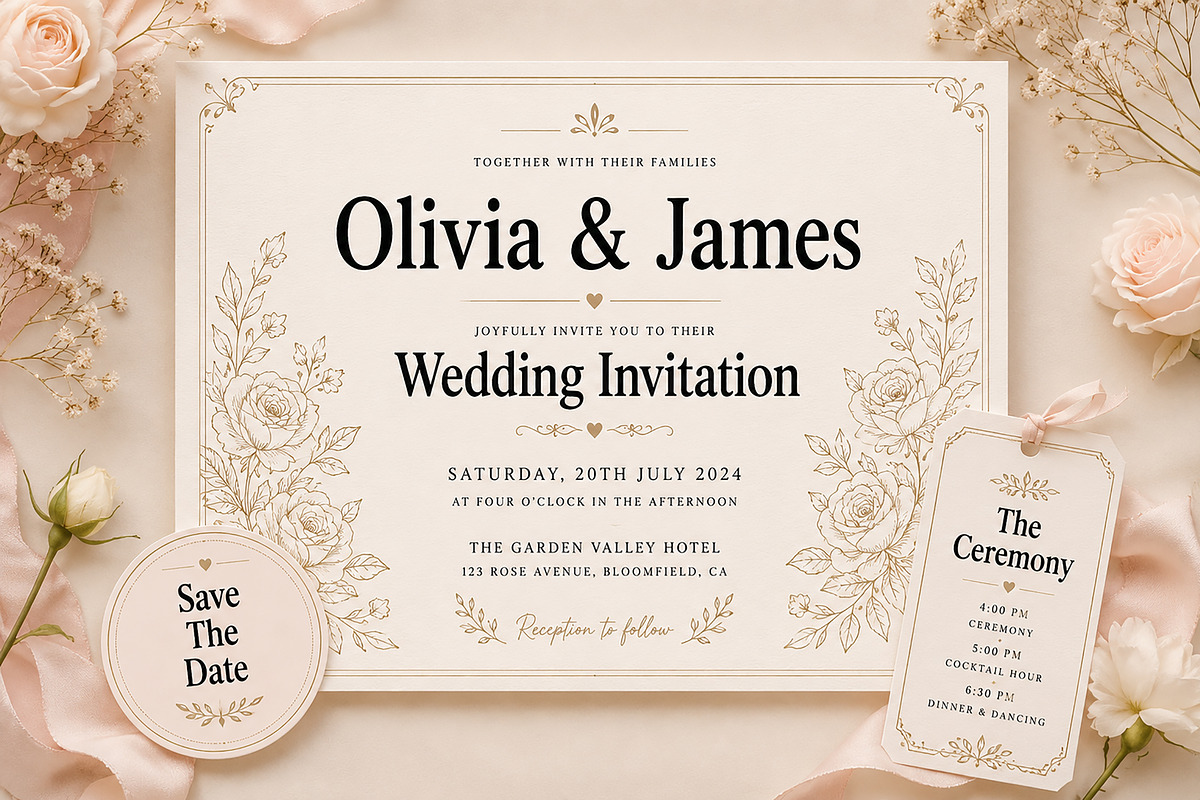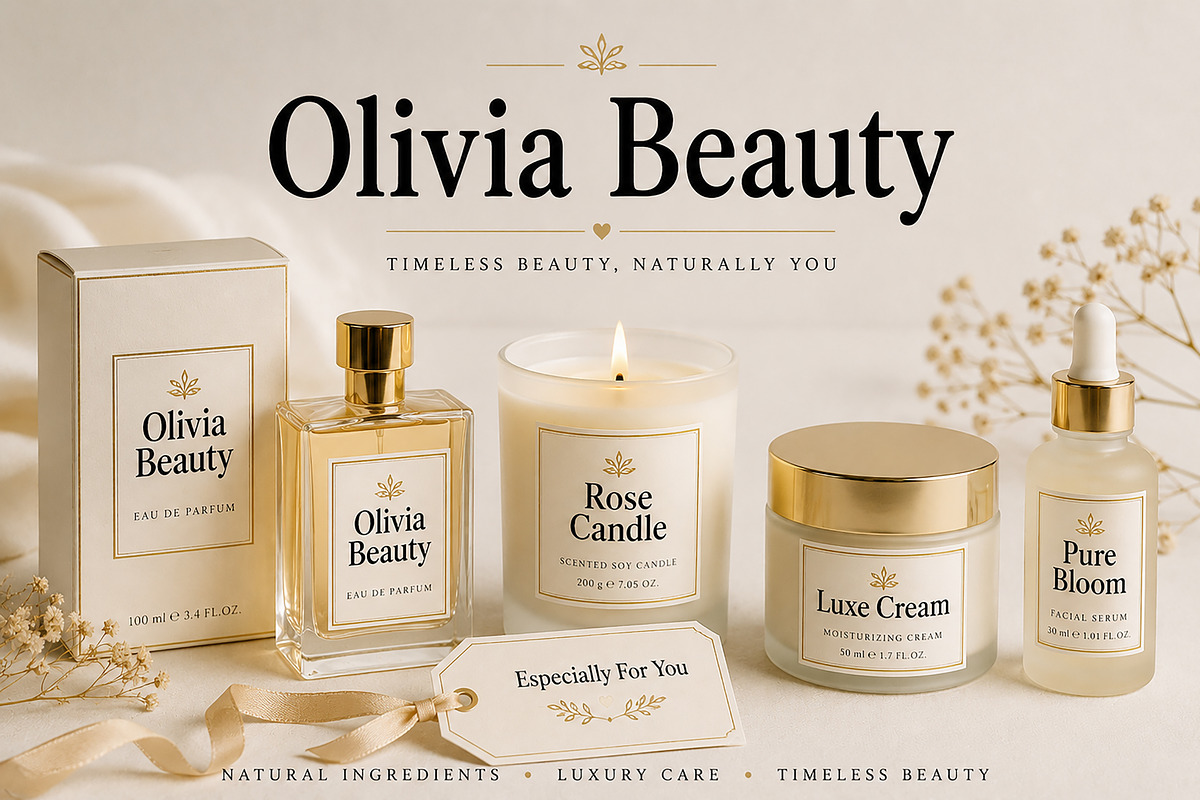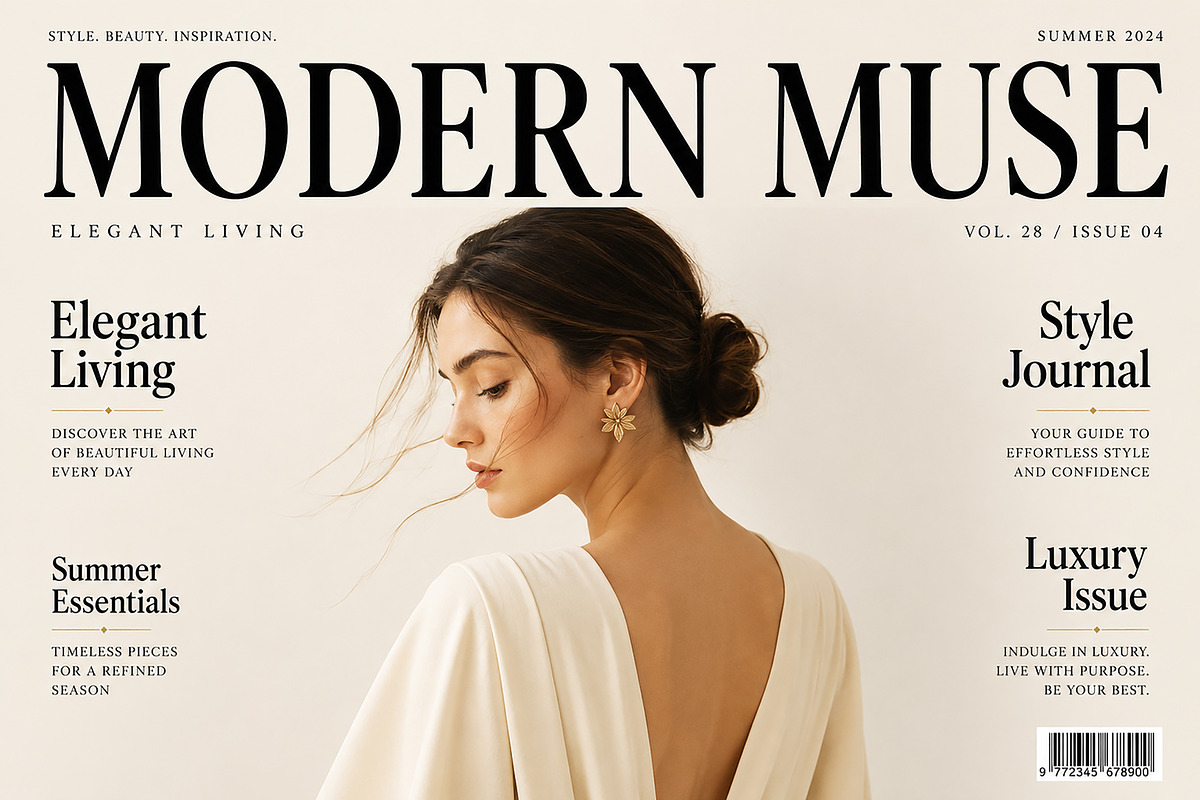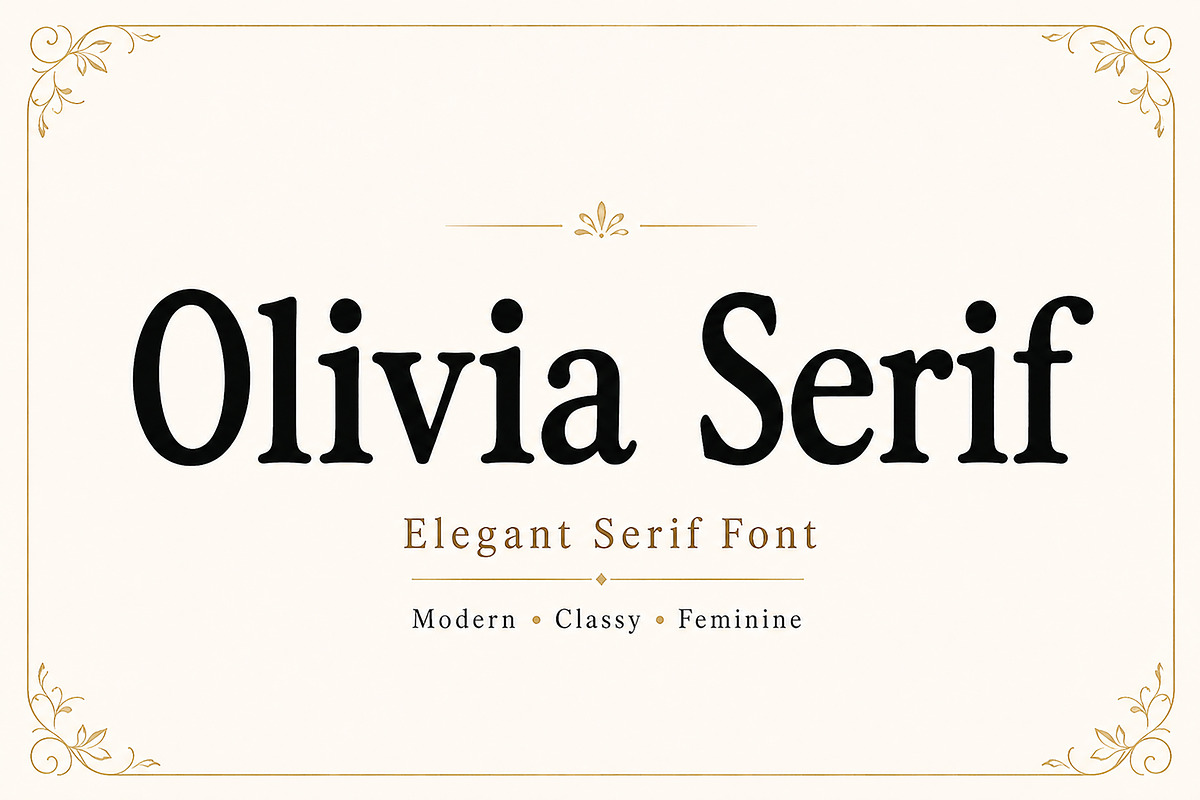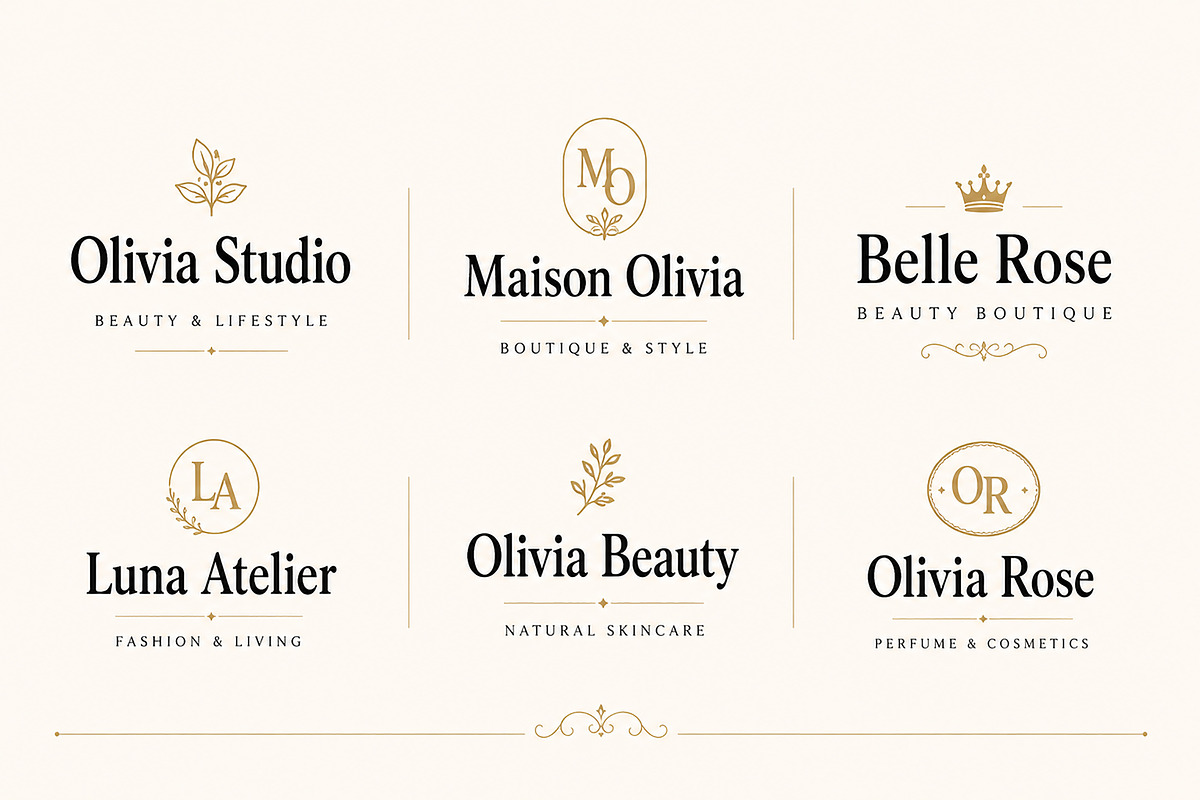
Olivia Serif
Olivia Serif – Elegant Luxury Serif Font
Introducing Olivia Serif, a timeless and sophisticated serif typeface designed to bring elegance, charm, and refinement to every creative project. Featuring graceful letterforms, balanced proportions, and beautiful classic details, Olivia Serif is perfect for luxury branding, editorial layouts, wedding stationery, beauty packaging, fashion identities, and premium logo design.
Its stylish appearance blends modern minimalism with classic serif elegance, making it an excellent choice for designers who want to create high-end, professional, and memorable designs.
Whether you're designing a luxury brand, magazine cover, cosmetic packaging, invitation suite, or boutique logo, Olivia Serif delivers a clean, polished, and premium aesthetic.
Luxury Branding
Fashion Logos
Beauty & Cosmetic Packaging
Wedding Invitations
Editorial & Magazine Design
Boutique Branding
Website Headers
Stationery Design
High-End Marketing Materials
Elegant Serif Display Font
Classic & Modern Style
Clean, Premium Letterforms
Highly Readable
Beautiful for Headlines
Luxury Branding Ready
Perfect for Print & Digital Design